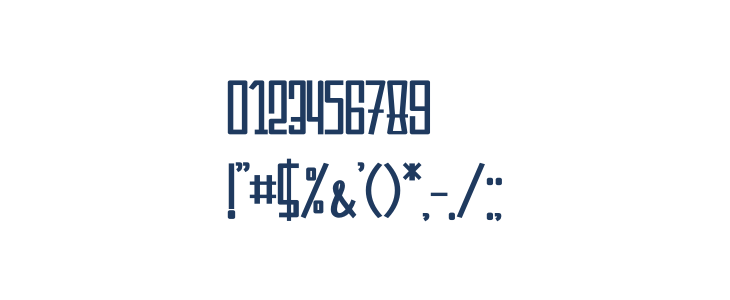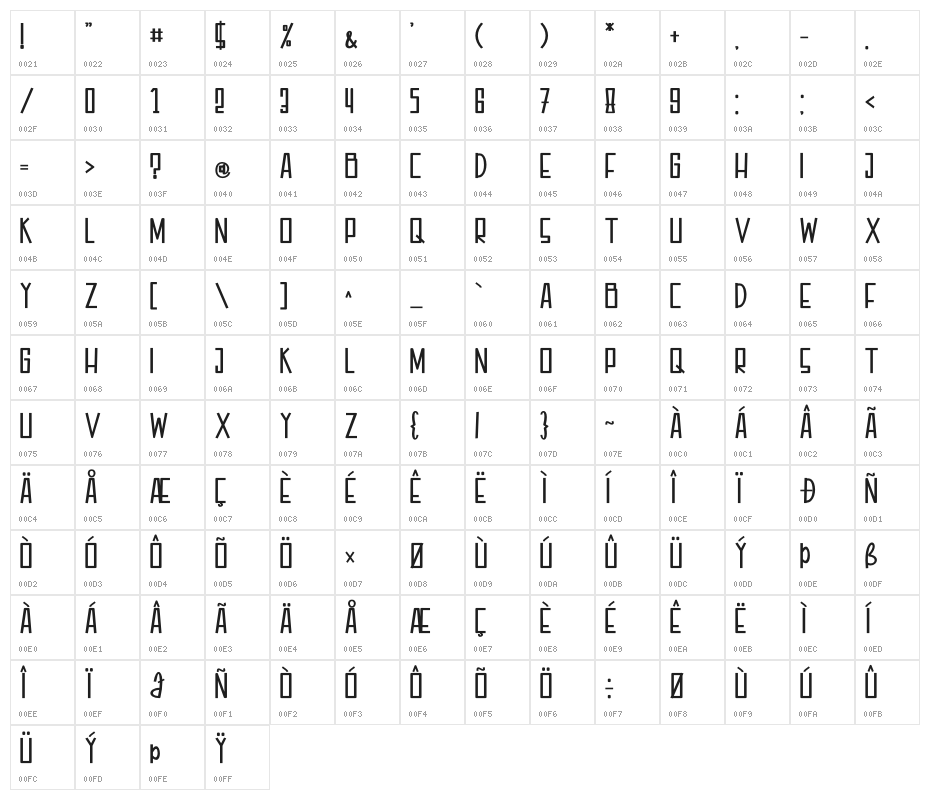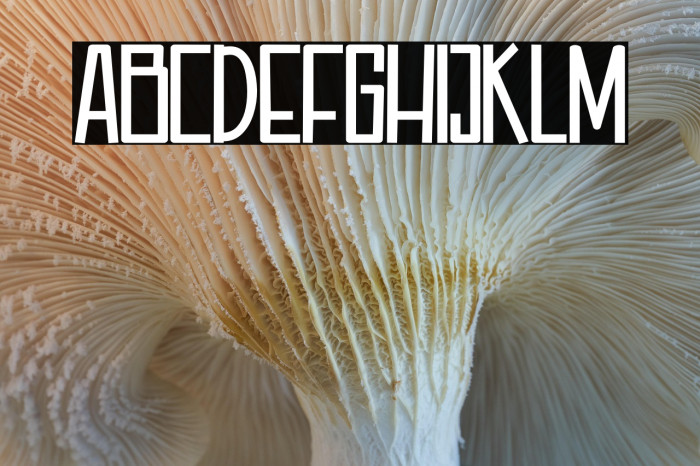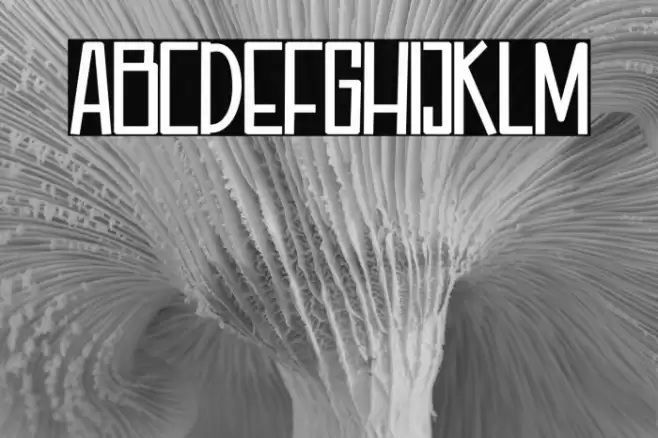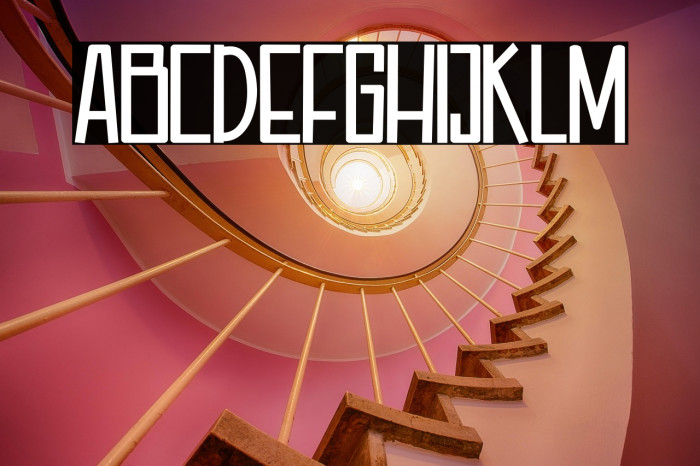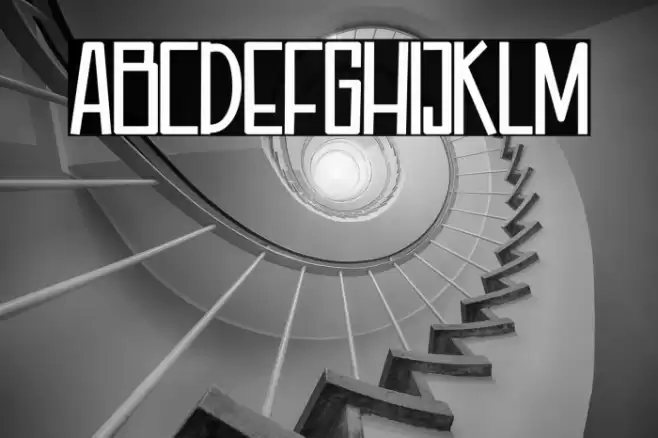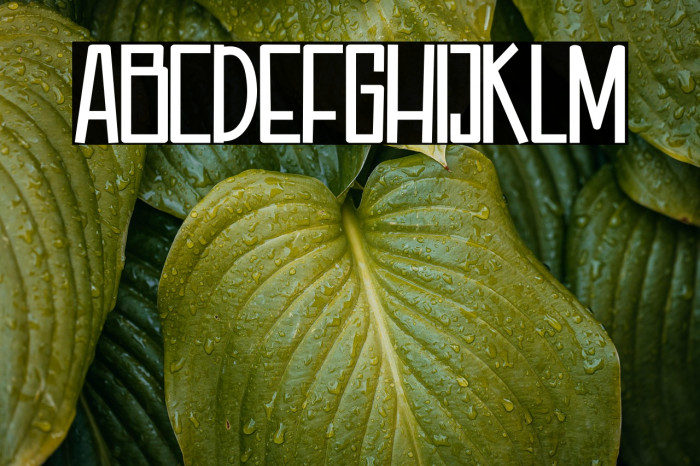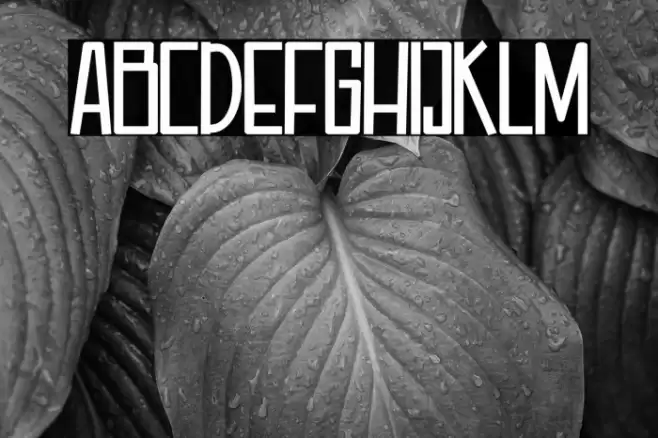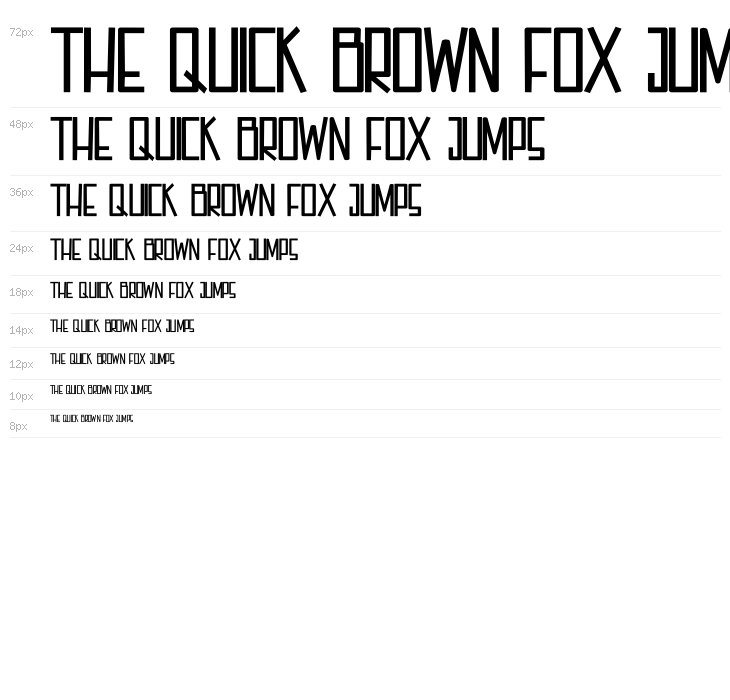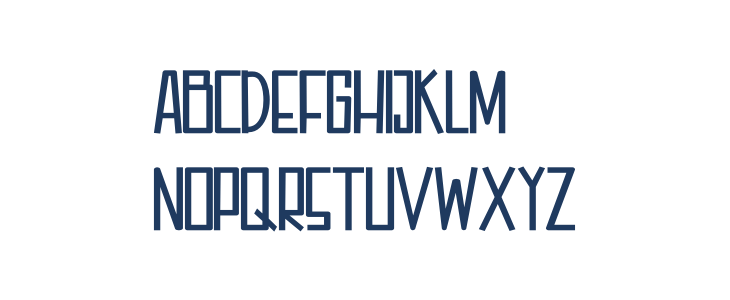
Aquarilla Font
Aquarilla Description
This font exhibits a modern, geometric style with elongated and narrow letterforms. The uppercase letters are distinct with sharp angles and a consistent stroke width, giving it a sleek and contemporary appearance. The numerals and special characters maintain the same geometric aesthetic, ensuring uniformity across all characters. The font's clean lines and minimalistic design make it versatile for various applications. It conveys a sense of precision and modernity, suitable for projects that require a futuristic or tech-savvy look.
| Proposed Projects | Ideal for technology branding, modern advertising, futuristic posters, and digital interfaces. |